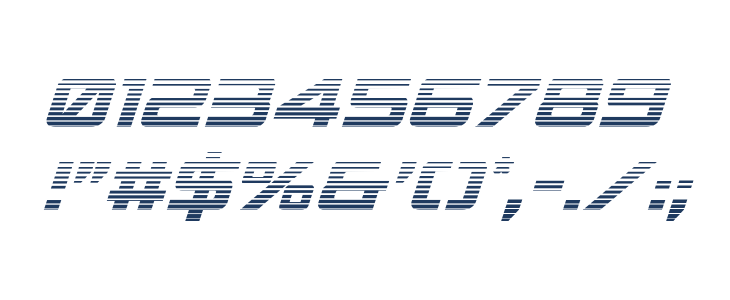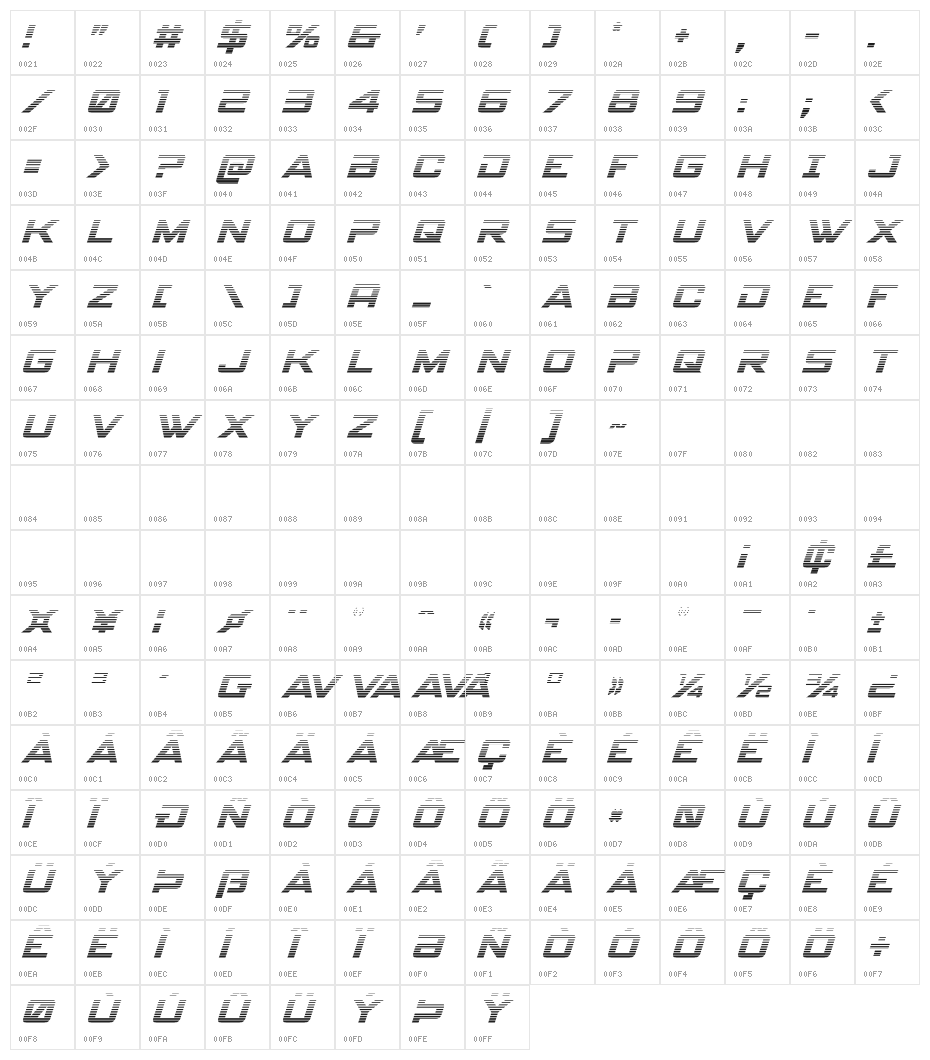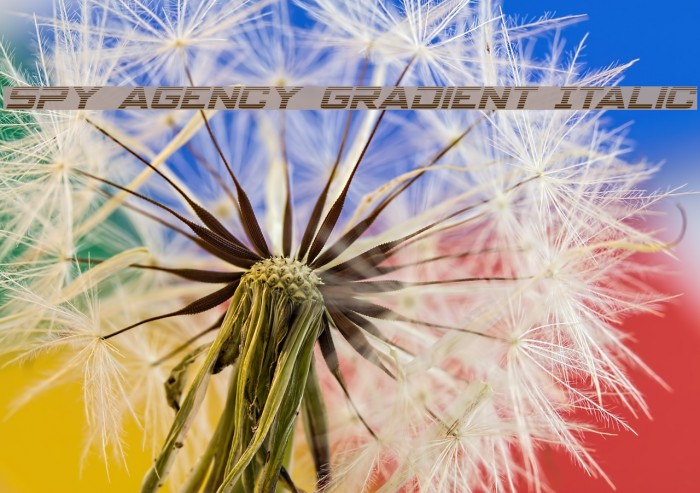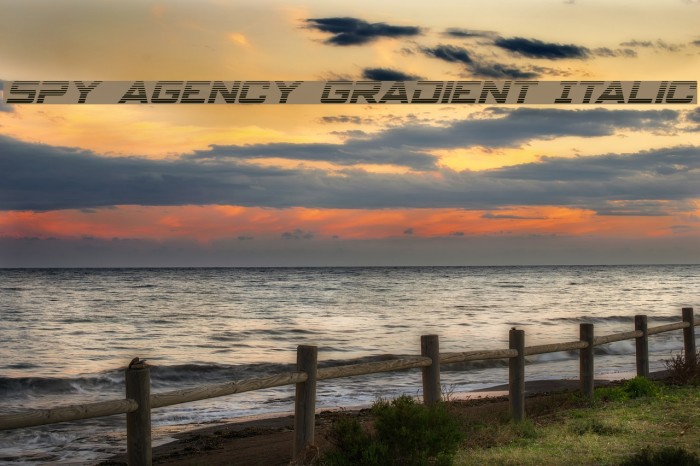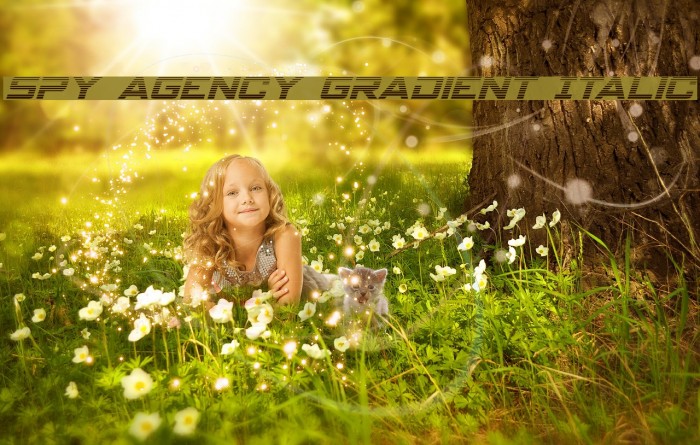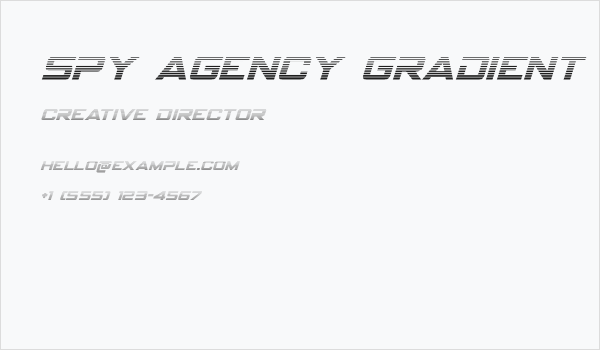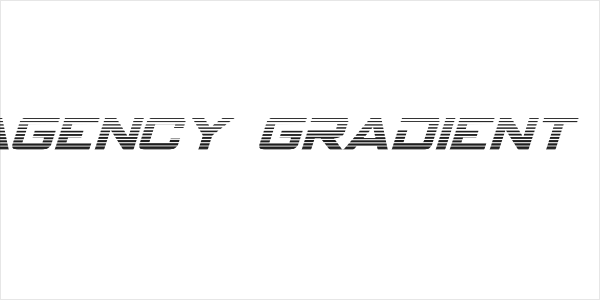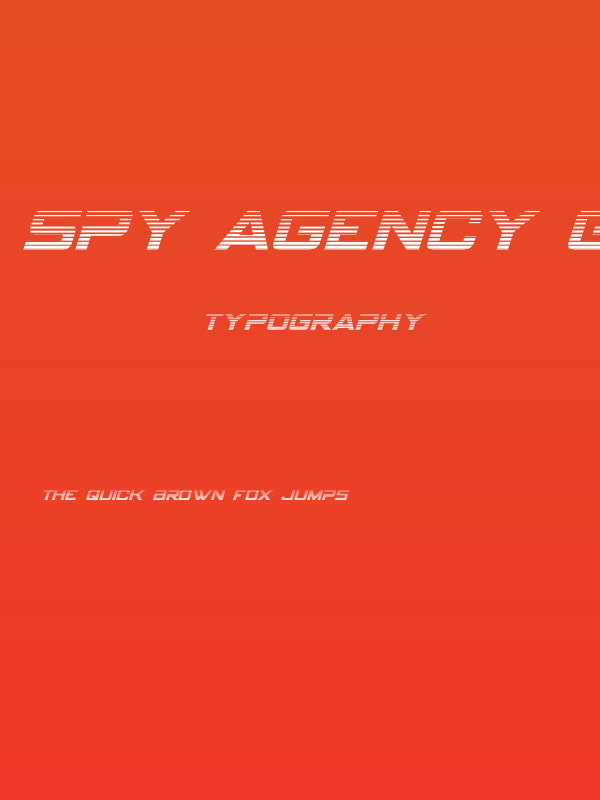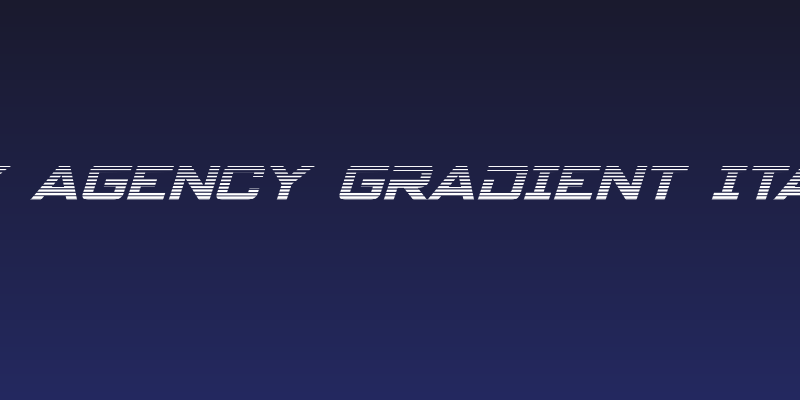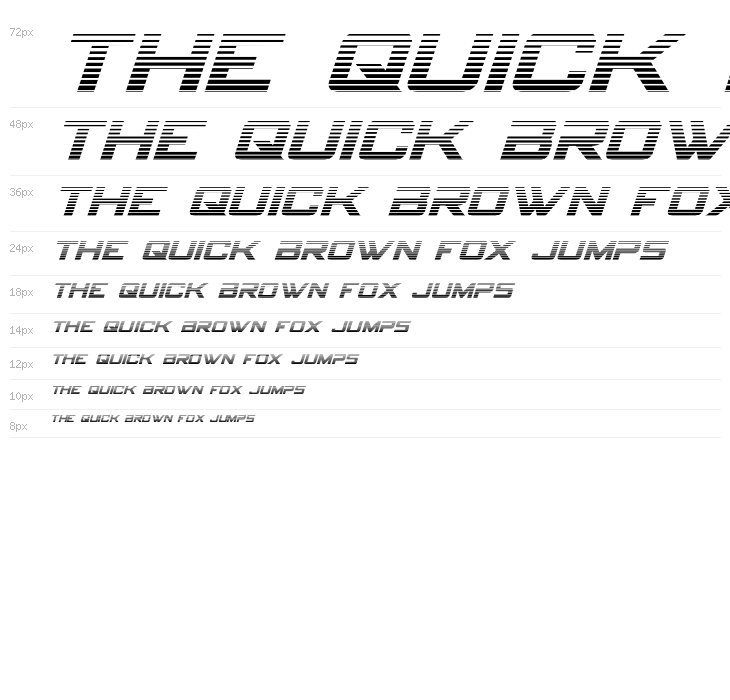
Spy Agency Gradient Italic Font
Spy Agency Gradient Italic Description
This font features a futuristic and dynamic design with a distinct italic slant. The characters are composed of horizontal lines that create a gradient effect, giving the font a sense of movement and speed. The uppercase and lowercase letters maintain a consistent style, with sharp angles and clean lines. The numerals and special characters follow the same design principles, ensuring uniformity across the typeface. This font is ideal for projects that require a modern and edgy look, such as technology branding, sci-fi themes, or action-oriented graphics.
| Proposed Projects | Ideal for technology branding, sci-fi themes, action graphics, and modern advertising. |